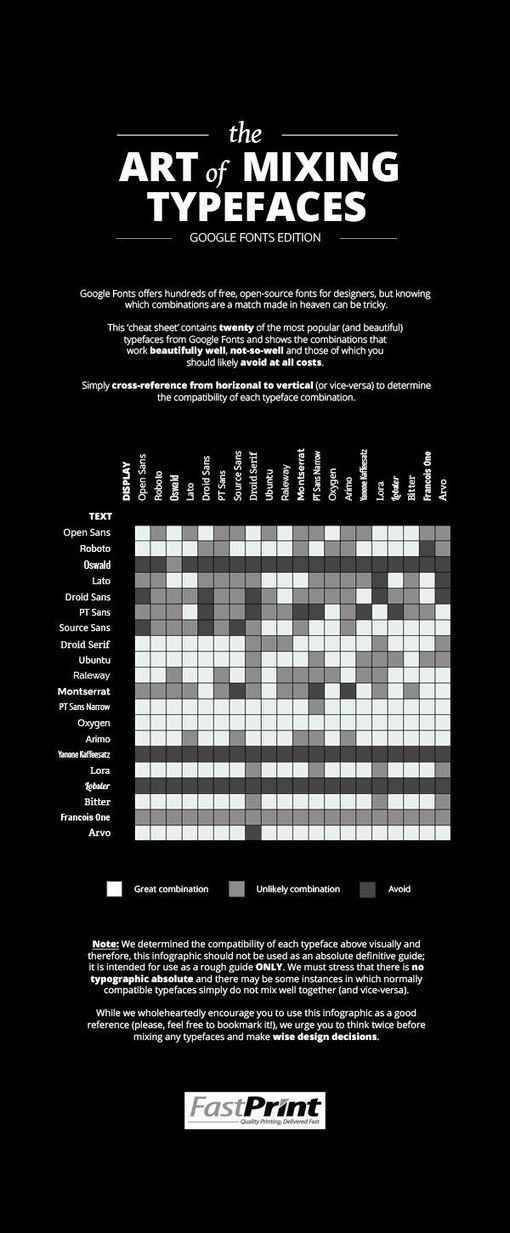
Free Script Fonts That Go With Montserrat | Premium Fonts
script fonts that go with montserrat
The montserrat project began with the idea to rescue what is in montserrat and set it free under a libre license the sil open font license.
Script fonts that go with montserrat. It goes well with open sans source sans pro lora roboto pt serif georgia esteban lato gill sans and tinos. Montserrat is a geometric sans serif typeface designed by argentinian designer julieta ulanovsky. All of this text is editable. Simply click anywhere in the paragraph or heading text and start typing.
In this post weve laid out 50 perfect font combinations that you can use in your designs today. Download free font montserrat by julieta ulanovsky from category sans serif. Give 16px a shot for content. You can copy and paste your own content in to see what it looks like with these font combinations.
This is the normal family and it has two sister families so far alternates and subrayada. The design was inspired by signage from her historical buenos aires neighborhood of the same name. Montserrat is a sans serif font. Of course all fonts mentioned in this post are included in snappa.
If youre thinking about using montserrat then try 30px for headers. A sans serif typeface with 36 styles available from adobe fonts for sync and web use. Montserrat crimson text. When it comes to graphic design fonts play an integral role.
Explore montserrat designed by julieta ulanovsky at adobe fonts. Simply click anywhere in the paragraph or heading text and start typing. Sans serif tagged with. Montserrat is often mentioned as the closest free alternative to gotham and proxima nova however in my opinion its a much more distinctive.
What fonts actually go well together not to worry. Bold geometric montserrat font family paragraph sans sans serif font vintage about dafont dafont free is a collaboration of free high quality fonts including basic script handmade calligraphy fancy display gothic and more. Adobe fonts is the easiest way to bring great type into your workflow wherever you are. A sans serif typeface with 36 styles available from adobe fonts for sync and web use.